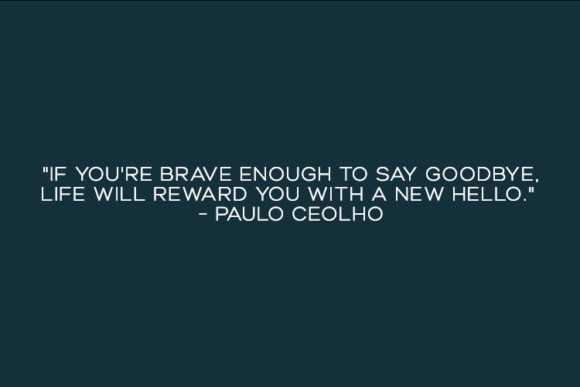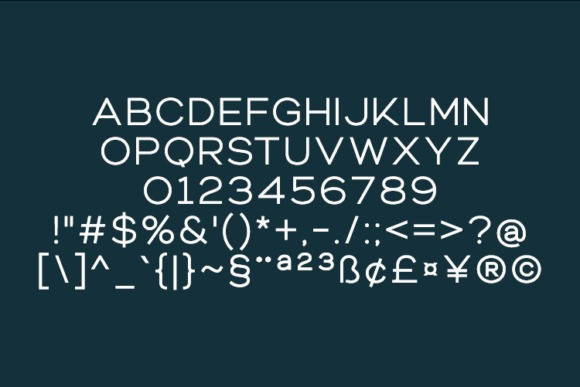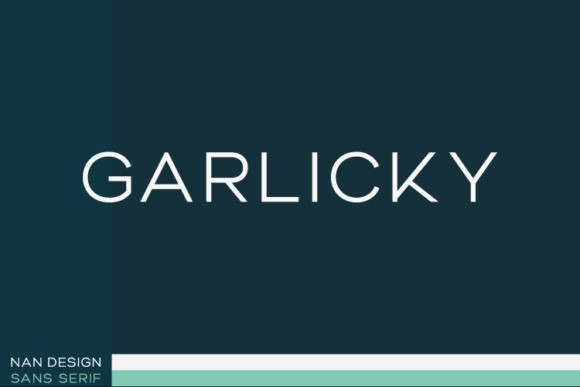
Garlicky ND Font
Garlicky ND Font is a stunning sans serif to complement every project you’re working on. Use it to create beautiful headings, gorgeous invitations, stunning logos, and so much more!